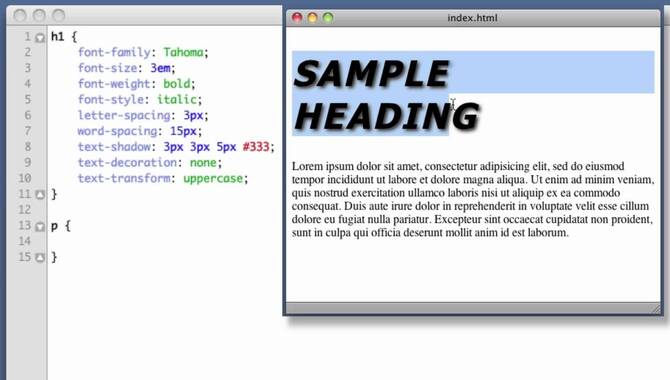
CSS font thickness is determined by the font-weight property, which ranges from 100 to 900 and typically has a value of 400 as weight.
Bold and semi bold are generally used for emphasis, while values of 700 or higher create a bolder effect. Regarding web design, typography is just as important as any other element on the page. The right font choice and style can make all the difference in how your audience perceives your content.
Are you tired of boring text on your website that fails to grab the reader’s attention? Then CSS font thickness techniques are what you need. We’ll dive deep into the world of the CSS font-weight property and discuss how it can help improve the user experience on your website.
We’ll explore different techniques for managing font sizes and styles. Understand the importance of fonts in HTML, and guide you in choosing the right font for your website. Additionally, we’ll provide practical tutorials on creating bold text with CSS and specifying font weights for improved readability. So let us show you how to make your text stand out.
Understanding The Font-Weight Property
The font-weight property in CSS determines the thickness of a font. It is an important aspect of typography that can greatly impact the overall design of a website or document. The property accepts numerical values ranging from 100 to 900, with 400 being the default value for normal text and 700 for bold text.
Using font weight, you can create visual hierarchies on a page by making certain headings or paragraphs stand out more than others. It also allows you to match the weight of your fonts to your brand’s style and tone.
When choosing a font-weight value, it’s important to consider legibility and readability, as well as the overall design aesthetic of your project. By mastering the font-weight property, you can take your typographic skills to the next level and create visually stunning, functional, and beautiful designs.
Manipulating Font Sizes And Styles With CSS
CSS is a powerful tool for manipulating font sizes and styles on your website. Using CSS, you can easily adjust the thickness of fonts to create emphasis and hierarchy on your page. One common method is to use the font-weight property, which allows you to make text appear bold or thin.
For example, setting font-weight: bold; will make your text appear thicker than normal, while font-weight: 100; will make it appear very thin. Additionally, you can use other CSS properties, such as font size and font style, to further customize your fonts. Whether you want to make a statement with bold headlines or keep things simple with thin, elegant text, CSS gives you the flexibility to style your fonts exactly how you want them.
Importance Of Fonts In HTML
Fonts play a crucial role in the design and presentation of HTML content. The thickness of a font, also known as its weight or boldness, can have a significant impact on how text is perceived by the reader. Choosing the right font-weight can help convey your content’s intended tone and style.
Whether bold and attention-grabbing or elegant and refined. Additionally, using different font weights can be a useful way to add visual hierarchy to your content, making it easier for readers to navigate and understand. When choosing a font weight for your HTML content. It is important to consider aesthetic and functional factors to ensure your text is visually appealing and easy to read.
Utilizing CSS Font Thickness To Perfect Your Typography
Manipulating font sizes and styles with different CSS font-weight property keyword values. It can help create unique text effects on your web page. Combining this property with other CSS properties like font size, font-style, line height, and background image can enhance the visual appeal of your website’s text.
However, choosing appropriate and legible fonts from popular font families like Helvetica or Arial sans-serif is important for better readability. Consider using media queries to adjust the width of divs or parent elements based on screen size or device type for optimal viewing experience across browsers.
Choosing The Right Font For Your Website
Choosing the right font for your website can significantly impact the overall look and feel of your site. One important factor to consider is font thickness. A thicker font can make a statement and draw attention to important headlines or calls to action, while a thinner font can be more elegant and refined. It’s important to balance legibility and style when choosing a font thickness.
A font that is too thin may be difficult to read, while a font that is too thick may appear heavy-handed and overwhelming. Experiment with different font weights. And styles until you find the perfect combination that suits your website’s aesthetic and enhances the user experience.
Exploring Google Fonts For Custom Web Fonts
Google Fonts is a great resource for custom web fonts, including options for font thickness. With hundreds of free and easy-to-use fonts available, it’s no wonder that Google Fonts has become popular for web designers.
5.Which CSS Properties Can I Use To Make A Font Look Thicker?
Ans. To make a font look thicker, use the font-weight property with values ranging from bold to numeric values between 100-900. Adding text shadow can also create a thicker appearance. Alternatively, you can choose a different font family with a naturally thicker look.